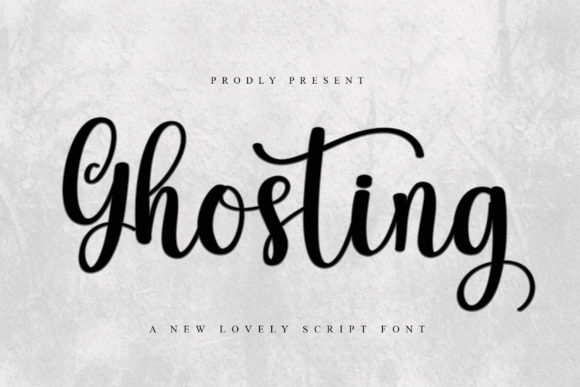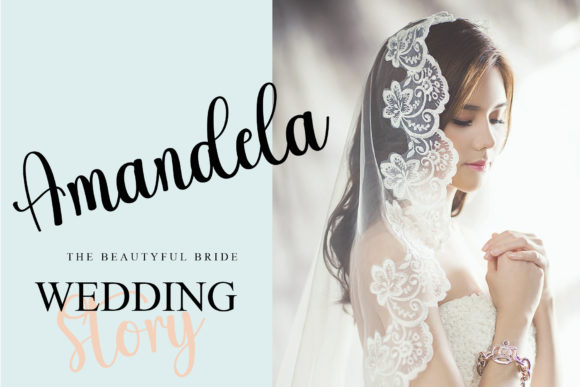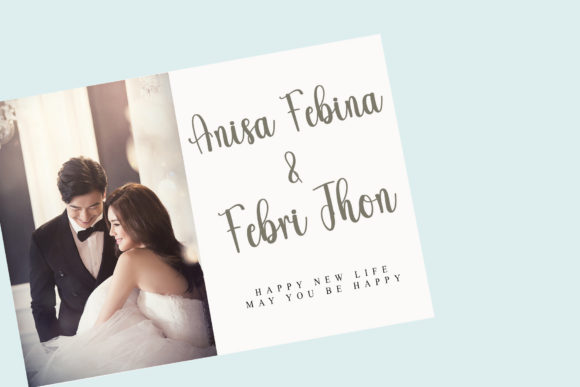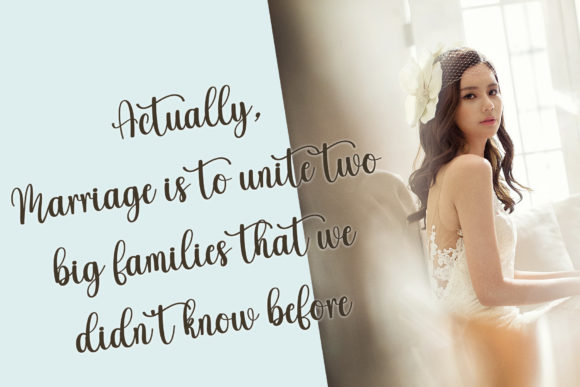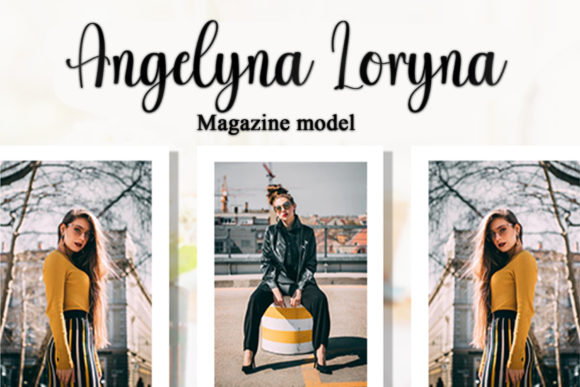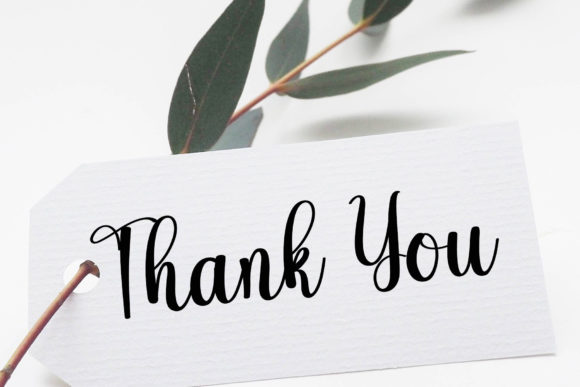
Ghosting Font
About Ghosting Font
“Ghosting” is a font that seamlessly embodies both charm and elegance, making it a stunning choice for an array of design applications. From wedding invitations and thank-you cards to quotes, greeting cards, logos, business cards, and any project requiring a handwritten touch, “Ghosting” offers a delicate and sophisticated script that elevates the visual appeal.
The charm of “Ghosting” is evident in its graceful and finely crafted design. The font’s handwritten touch imparts a sense of warmth and personal connection, making it particularly well-suited for occasions where an intimate and charming aesthetic is desired, such as weddings and special events.
Wedding invitations become enchanting masterpieces with the addition of “Ghosting.” The font’s fluid strokes and elegant details contribute to a romantic and timeless ambiance, setting the stage for a heartwarming celebration of love.
Thank-you cards, quotes, and greeting cards benefit from the expressive quality of “Ghosting.” The handwritten nature of the font adds a personal touch to messages, infusing them with charm and elegance. Whether conveying gratitude, sharing inspiration, or sending well wishes, “Ghosting” enhances the sentiment with its delicate script.
Logos and business cards take on a distinctive and refined identity with the use of “Ghosting.” The font’s sophistication adds a touch of professionalism while maintaining a personalized and handcrafted feel. It becomes a signature element that elevates the brand’s visual appeal.
The versatility of “Ghosting” extends to various design projects where a handwritten touch is desired. Its charm and elegance make it a fitting choice for a range of creative endeavors. From packaging to social media posts, “Ghosting” adds a unique and captivating dimension to the overall design.
In summary, “Ghosting” is a font that effortlessly blends charm and elegance. Its versatility makes it suitable for a variety of design applications, especially those that require a handwritten touch for a more intimate and personalized feel. Let “Ghosting” be the font that brings a touch of sophistication and charm to your wedding invitations, thank-you cards, quotes, greeting cards, logos, business cards, and beyond.